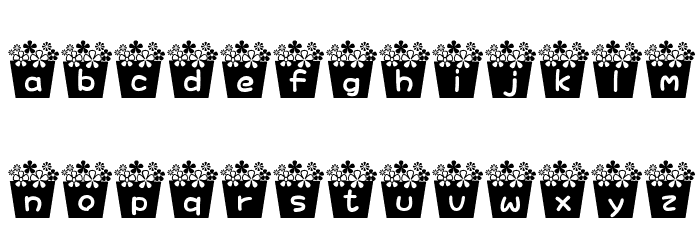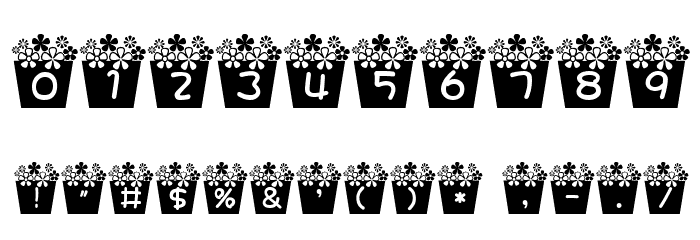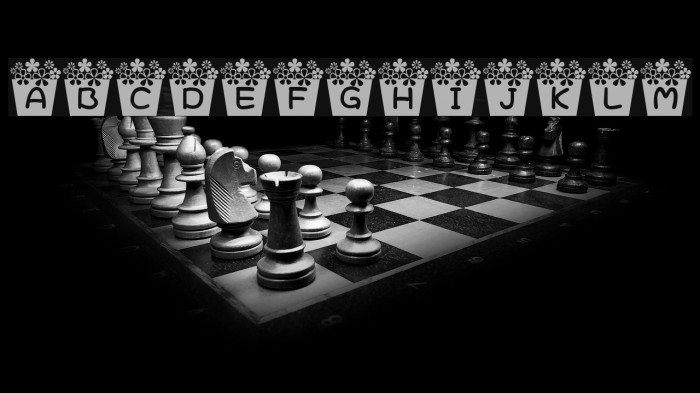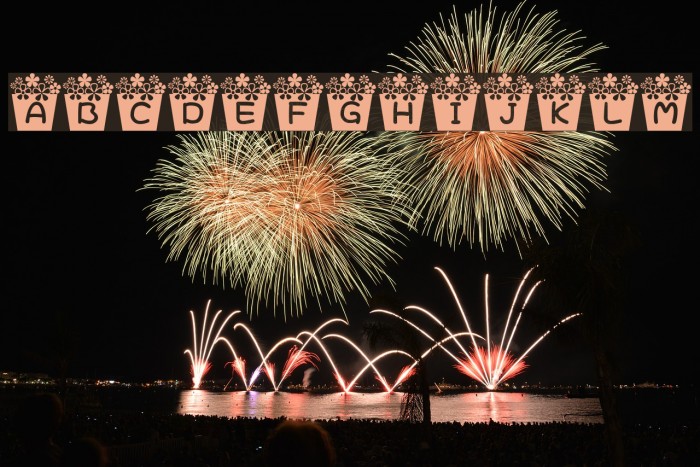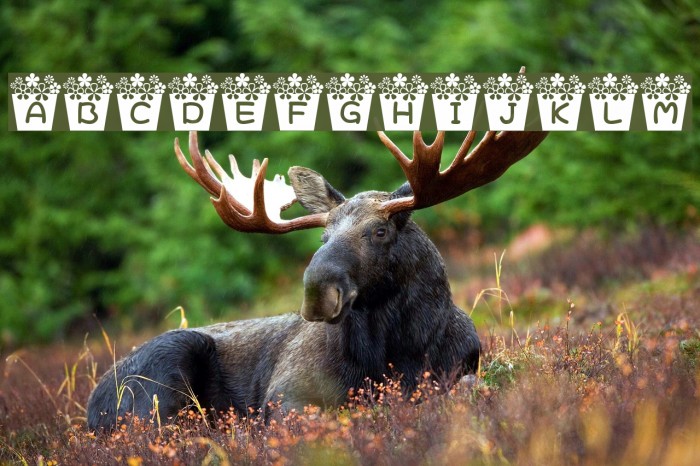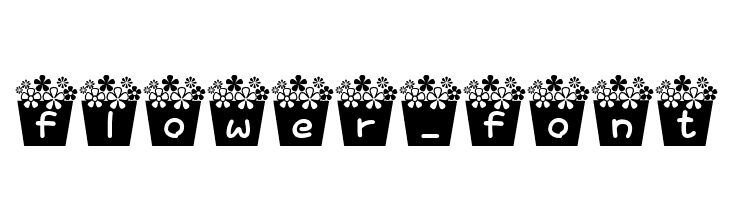
flower_font Font
This playful and decorative font features each character enclosed within a flower pot, topped with a charming array of flowers. The letters are bold and rounded, providing a whimsical and friendly appearance. The design is consistent across uppercase, lowercase, numbers, and special characters, making it ideal for projects that require a fun and engaging visual element. The unique style of this font makes it stand out, perfect for creative and informal designs.
A playful, flower-themed decorative font with bold, rounded characters.
- Proposed Projects: Ideal for children's books, greeting cards, party invitations, and playful branding projects.
- Use Case: Headlines, Logos, Creative projects